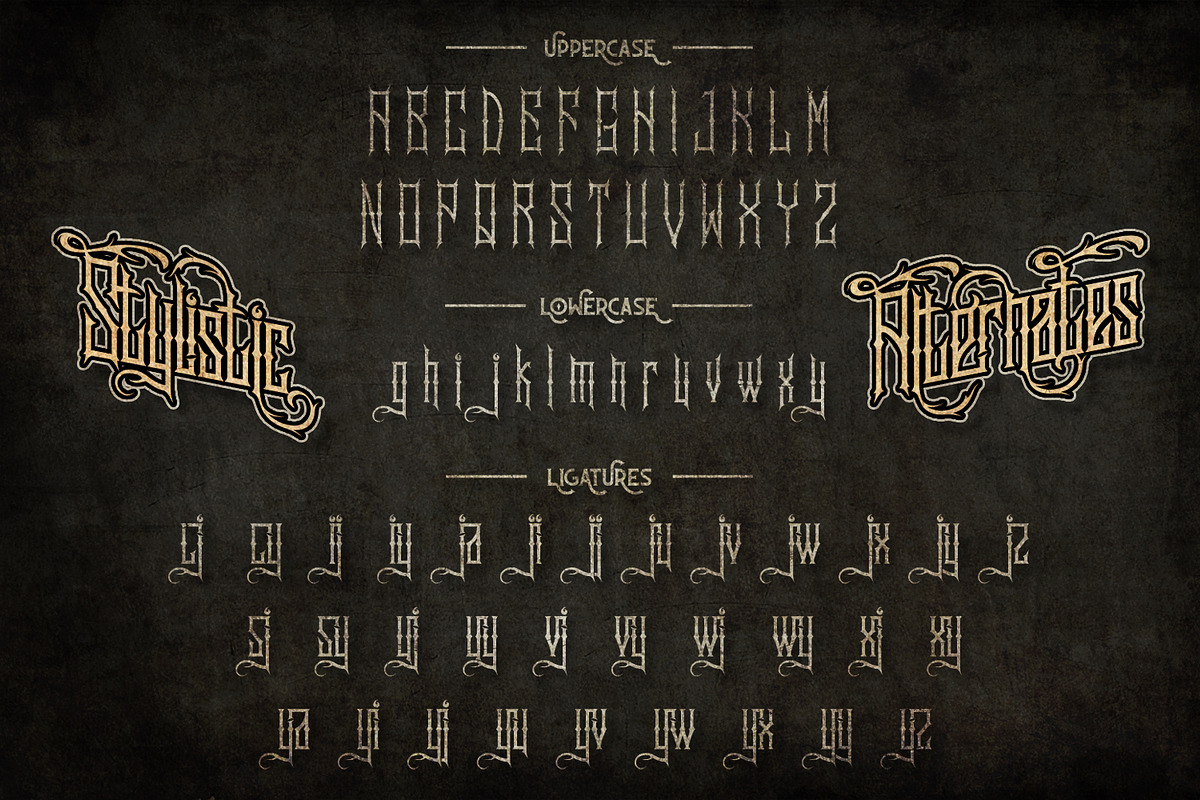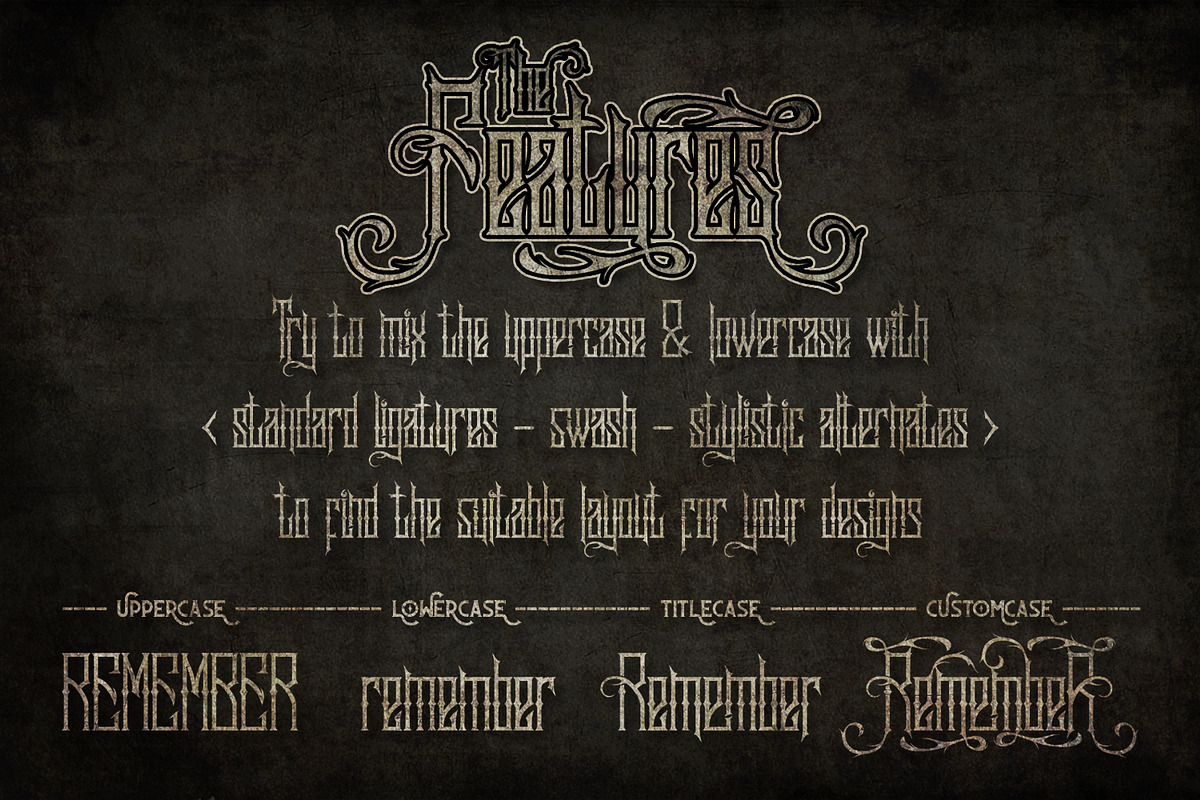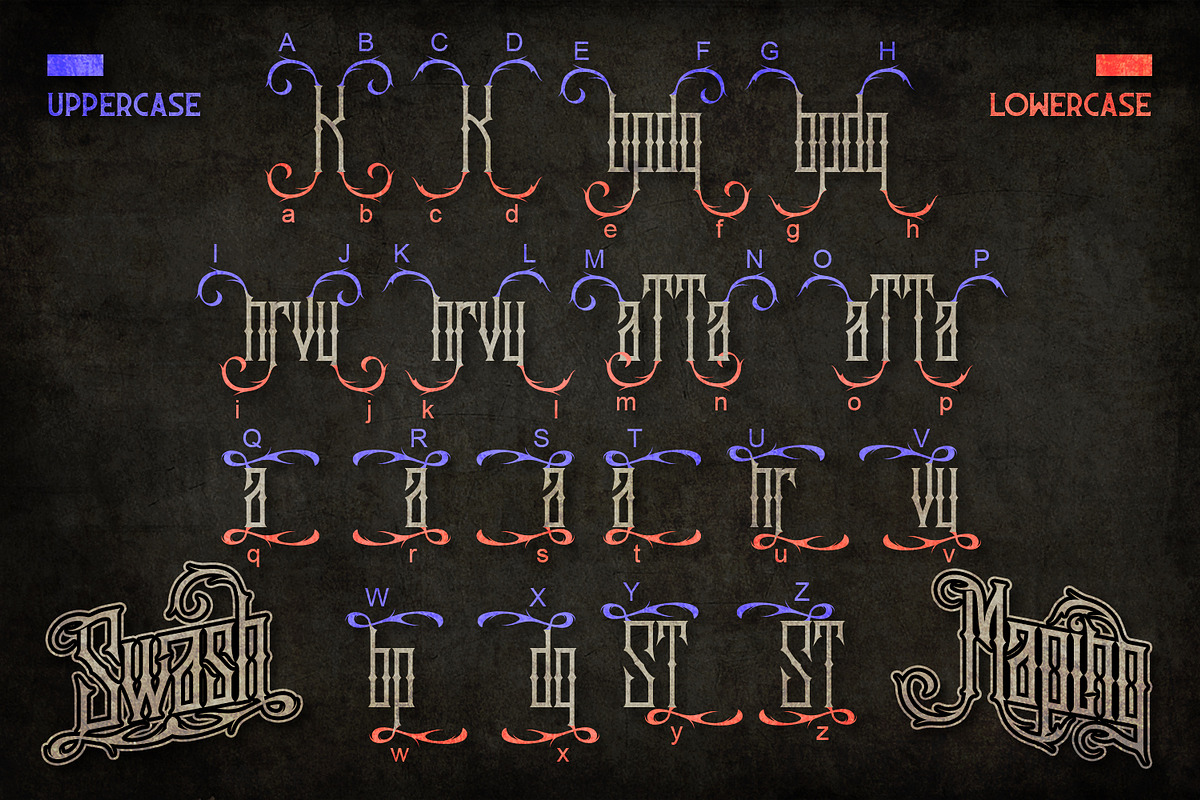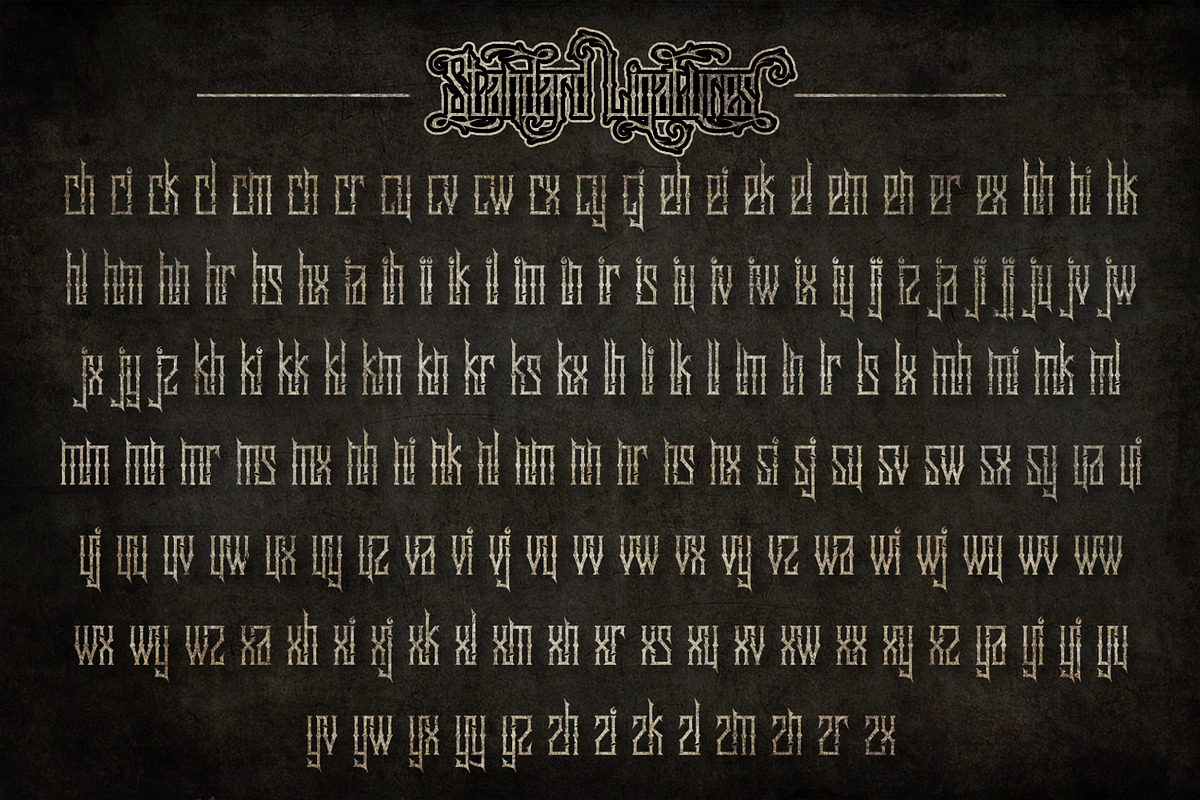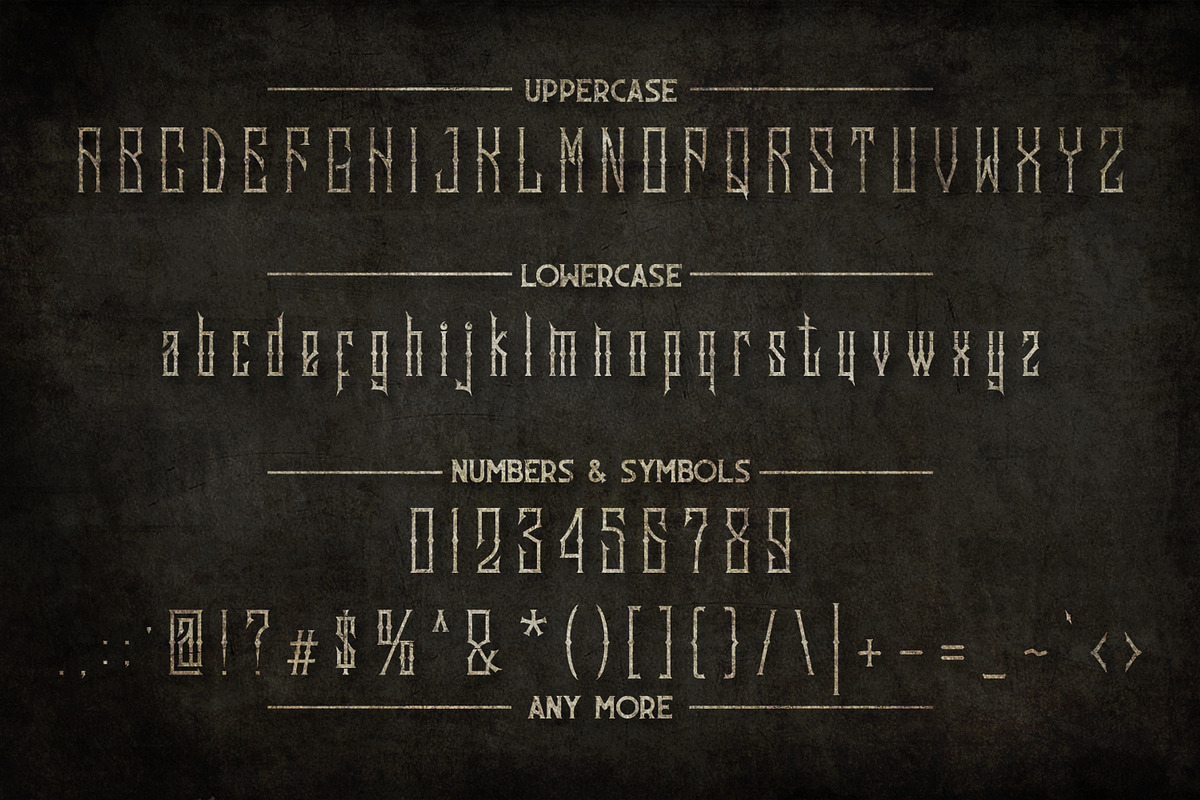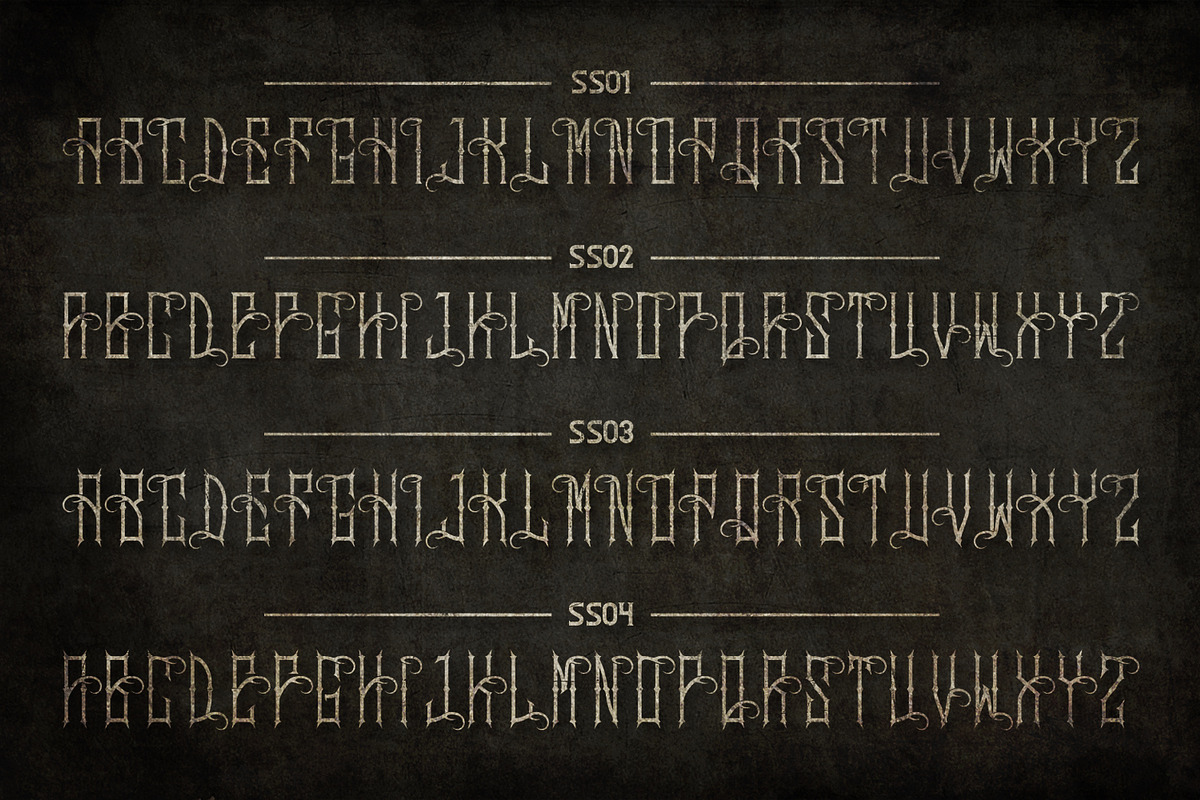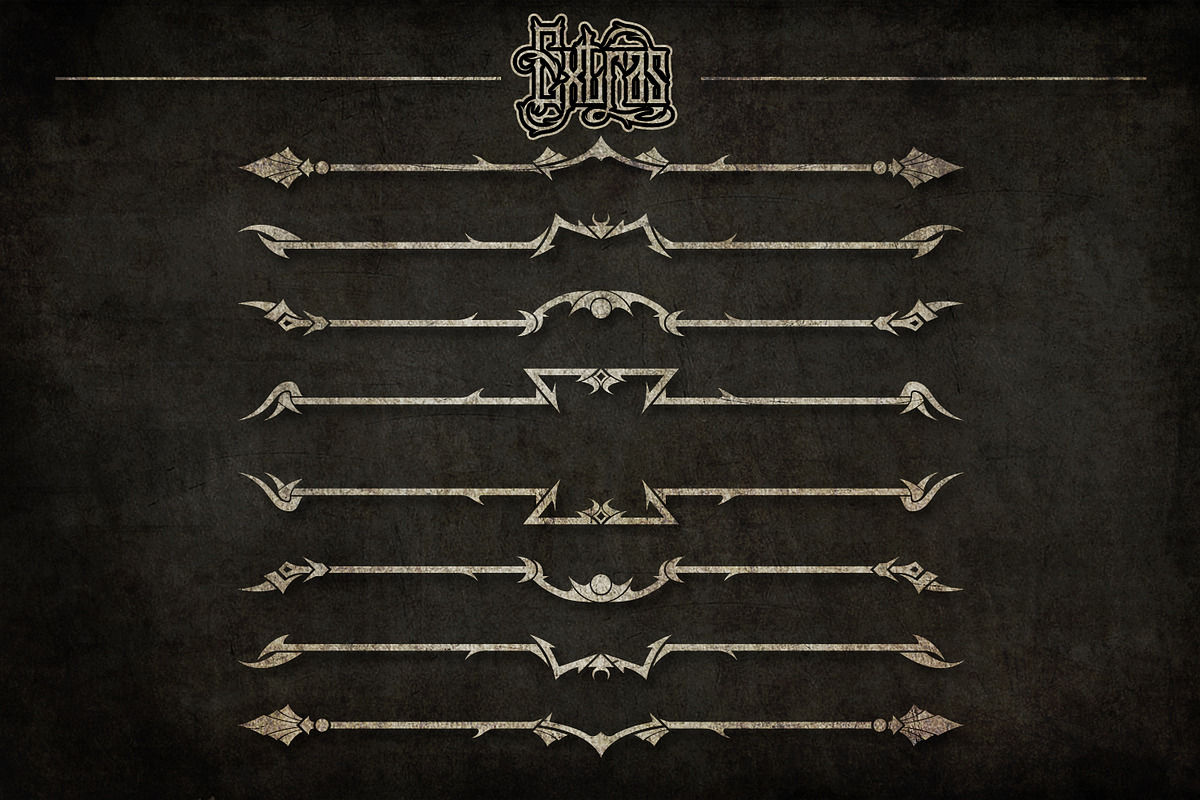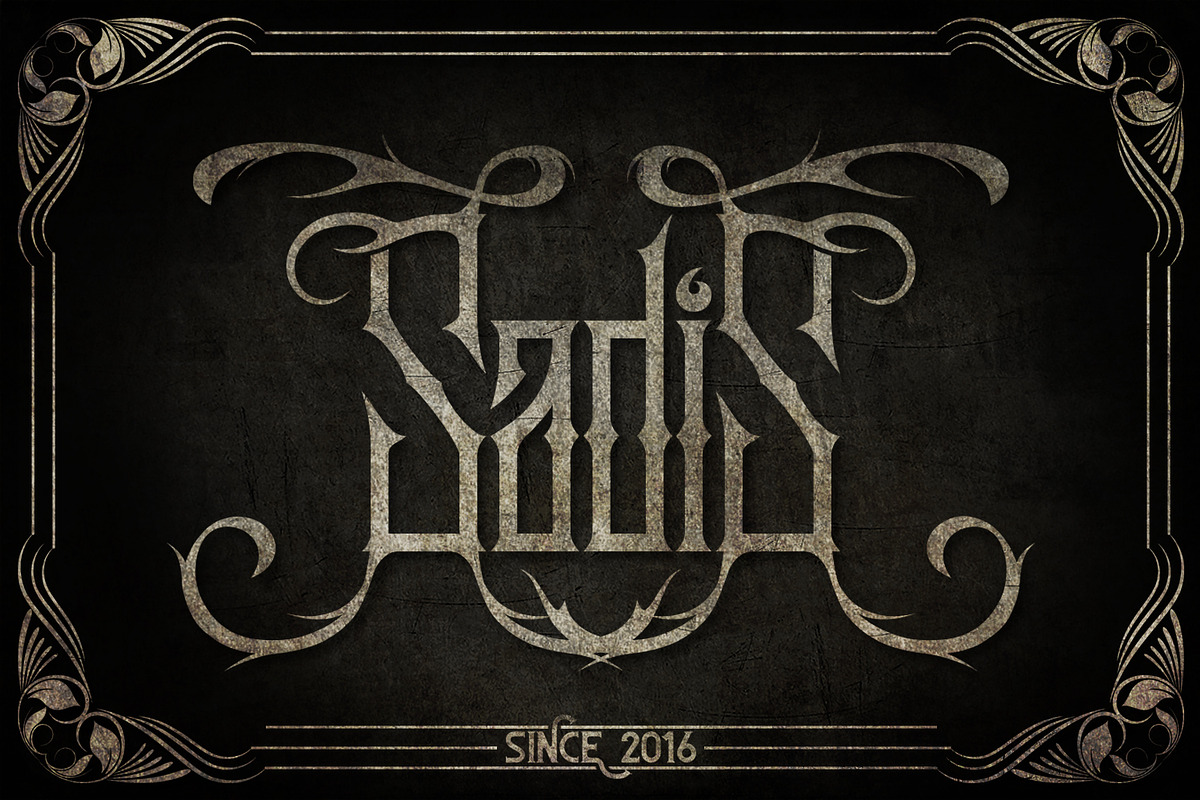
Sadis Typeface+Extras
Sadis Typeface+Extras by Dikas Studio is a font selected for branding, posters, packaging, typography.
- Feature Character Set A-Z (Uppercase & Lowercase) Numerals & Punctuations Accents (Multilingual characters) Stylistic Alternates Standard Li
- Try to mix the uppercase and lowercase with ( standard ligature - swash - stylistic alternates ) to find the suitable layout for your design
Why Sadis Typeface+Extras is worth a look
Sadis Typeface+Extras by Dikas Studio fits naturally into Branding, posters, packaging, typography.